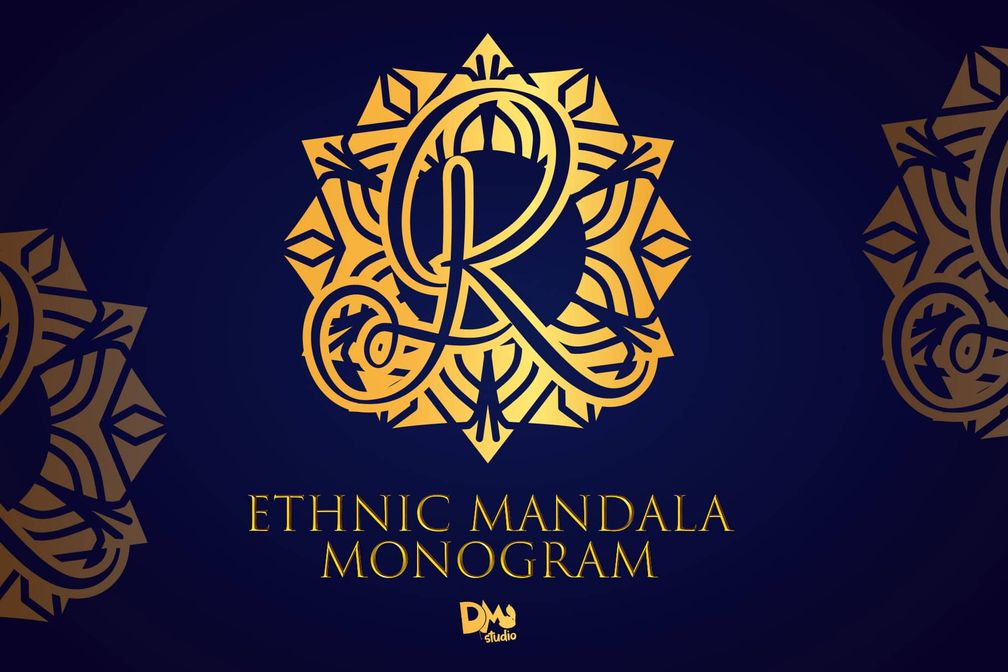
Ethnic Mandala Monogram
Ethnic Mandala Monogram – Elegant & Culture-Inspired Monogram Font
Ethnic Mandala Monogram is a stunning monogram font that blends traditional ethnic patterns with intricate mandala artistry. Drawing inspiration from diverse global cultures and ornamental craftsmanship, this font is perfect for cultural branding, artisanal product packaging, festive invitations, boho wedding designs, and heritage-themed projects. Its rich, detailed style adds a sense of tradition and beauty to any creative work.
• Ethnic & Mandala Motifs: Each letter features bold ethnic patterns harmoniously integrated with intricate mandala designs.
• Perfect for Cultural & Artistic Projects: Ideal for festival branding, artisanal packaging, heritage invites, and global-themed designs.
• Rich & Decorative Look: Combines cultural artistry with detailed linework for a timeless and meaningful aesthetic.